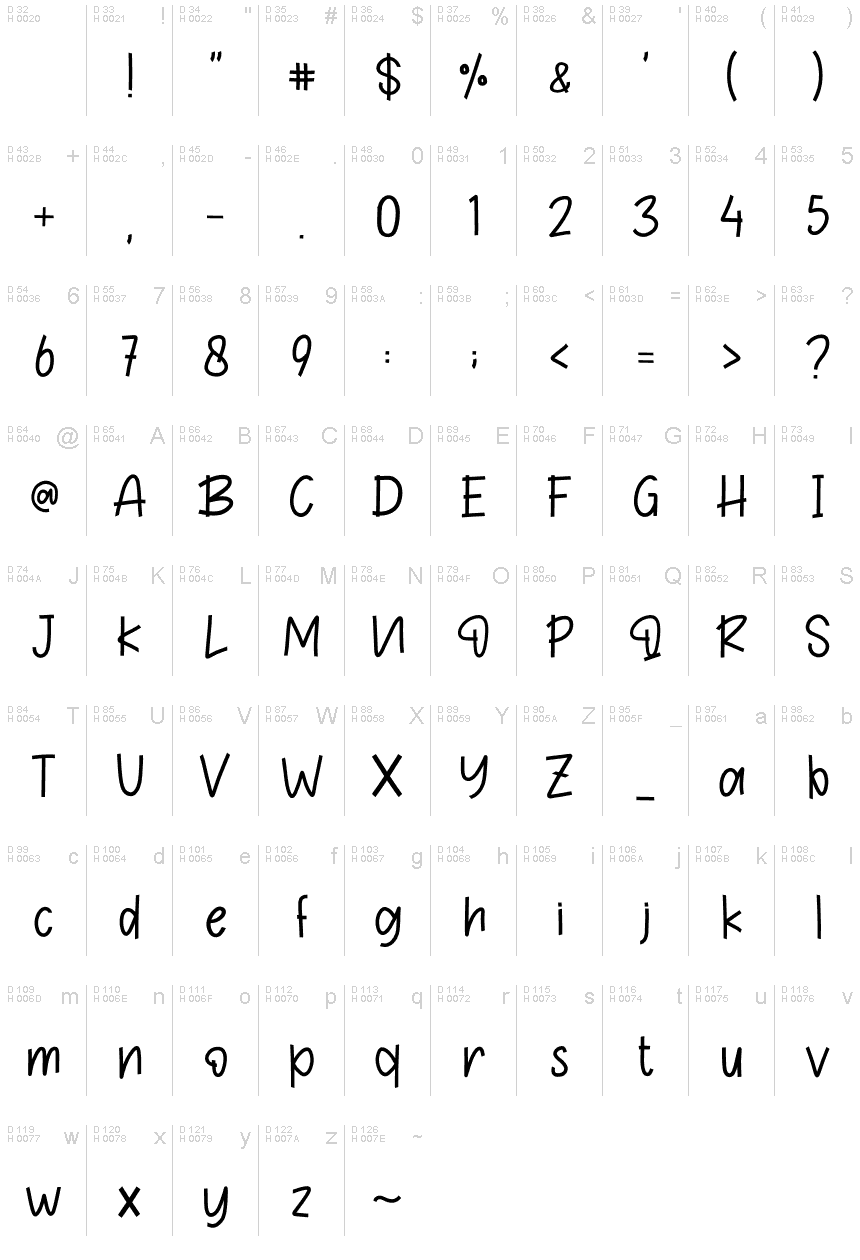
Christmas Line Regular
Christmas Line, a monoline script font designed by Letterafa Studio, offers a seamless blend of elegance and playfulness. With its semi-light weight, it adds a touch of delicacy to any project. Perfect for holiday-themed designs, this font evokes the festive spirit with its refined strokes and graceful curves. Whether it's creating greeting cards or crafting invitations for your next yuletide celebration, Christmas Line will add a whimsical charm that captivates hearts. Its versatility also makes it suitable for crafting logos, branding materials, and social media graphics that demand a touch of sophistication with a hint of cheerfulness.